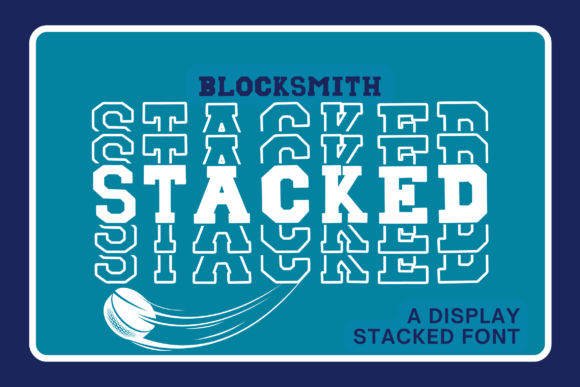
The Ultimate Varsity Font: A Deep Dive into Blocksmith Stacked
I’ll never forget the time I was working on a sports team logo project, and my client asked for a font that screamed “varsity spirit.” I scoured the internet, trying out font after font, but nothing seemed quite right. That was until I stumbled upon Blocksmith Stacked. With its bold, layered design, it instantly captured the classic yet modern varsity edge I was looking for. In this article, I’ll share my experience with Blocksmith Stacked, its features, and how to make the most of this fantastic font.
An Honest Review of Blocksmith Stacked
- ✨ Powerful Presence: Blocksmith Stacked takes the traditional bold look of varsity block letters and amplifies it with a layered, stacked style that’s hard to ignore.
- ✅ Dimensional Design: The font’s dimensional design adds depth and visual interest, making it perfect for sports graphics, team logos, posters, and standout merchandise.
- 🎨 Versatility: Whether used solid, stacked with outlines, or layered with colors, Blocksmith Stacked gives your designs a classic yet modern varsity edge.
While Blocksmith Stacked is an excellent font, there are a few things to keep in mind:
- ⚠️ Legibility at Small Sizes: Like many bold fonts, Blocksmith Stacked can become difficult to read at very small sizes. It’s best used at larger sizes where its impact can shine.
- 🤔 Glyph Limitations: While the font comes with a range of glyphs and stylistic alternates, some users may find the selection limited compared to more extensive font libraries.
The Designer Inspiration Behind Blocksmith Stacked
The inspiration behind Blocksmith Stacked comes from the classic American sports culture, particularly the iconic block letters seen on varsity jackets and sports equipment. The designer aimed to capture the spirit of competition and team pride in a font that’s both bold and versatile. By combining traditional varsity elements with modern design techniques, Blocksmith Stacked was born – a font that’s equal parts nostalgic and cutting-edge.
Q: What type of projects is Blocksmith Stacked best suited for?
A: Blocksmith Stacked is ideal for sports graphics, team logos, posters, merchandise, and any project that requires a bold, varsity-inspired look.
Q: Does Blocksmith Stacked support OpenType features?
A: Yes, Blocksmith Stacked comes with a range of OpenType features, including stylistic alternates and glyphs, which can be accessed in compatible design software.
Q: Is Blocksmith Stacked suitable for body text?
A: Due to its bold nature, Blocksmith Stacked is best used for headings and titles. For body text, consider a more readable font to ensure clarity.